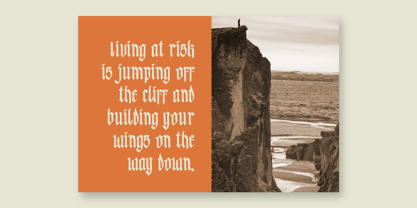
Blacktones
von Nathatype
Die Schriftfamilie Blacktones wurde von Donis Miftahudin entworfen und von Nathatype veröffentlicht. Blacktones enthält 1 Stile.
Are you looking for a blackletter font? Do you dream of creating headings that stand out and inspire creativity, imagination, and endless fun? Wait no more, we will give you the best choice.
Blacktones-A Blackletter Font
Blacktones is a simple blackletter font with big loopy letters. Perfect for adding a touch of whimsy to your already amazing designs. A real head-turner for your presentation, designs, branding, quotes, invitation, website illustrations, and much more.
Designer: Donis Miftahudin
Herausgeber: Nathatype
Foundry: Nathatype
Eigentümer des Designs: Nathatype